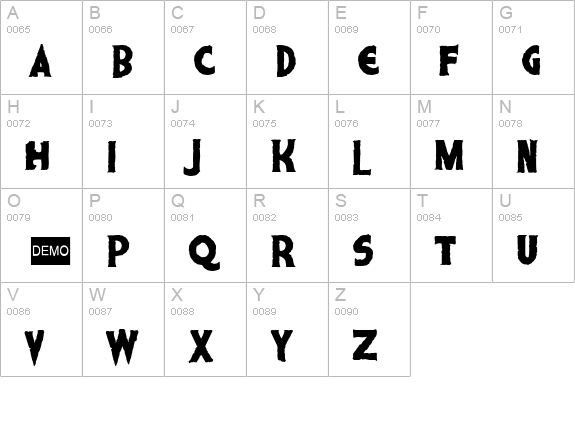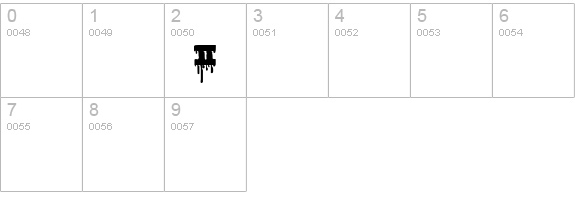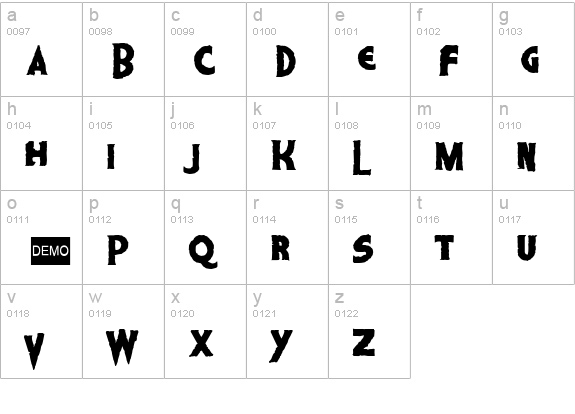
Living Dead 2 DEMO Font Details
The Living Dead 2 DEMO font is a hauntingly beautiful typeface that captures the essence of the undead with its eerie and macabre design. Perfect for Halloween-themed projects, horror movie posters, or any design that needs a touch of the supernatural, this font will send chills down your spine. The Living Dead 2 DEMO font is available for free download at FontsMarket.com, where you can unleash your creativity and bring your designs to life with this spooky and unique font. Embrace the darkness and add a touch of the undead to your projects with the Living Dead 2 DEMO font, freely available for download now.